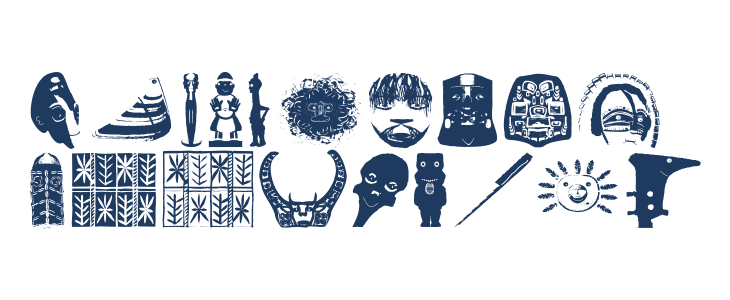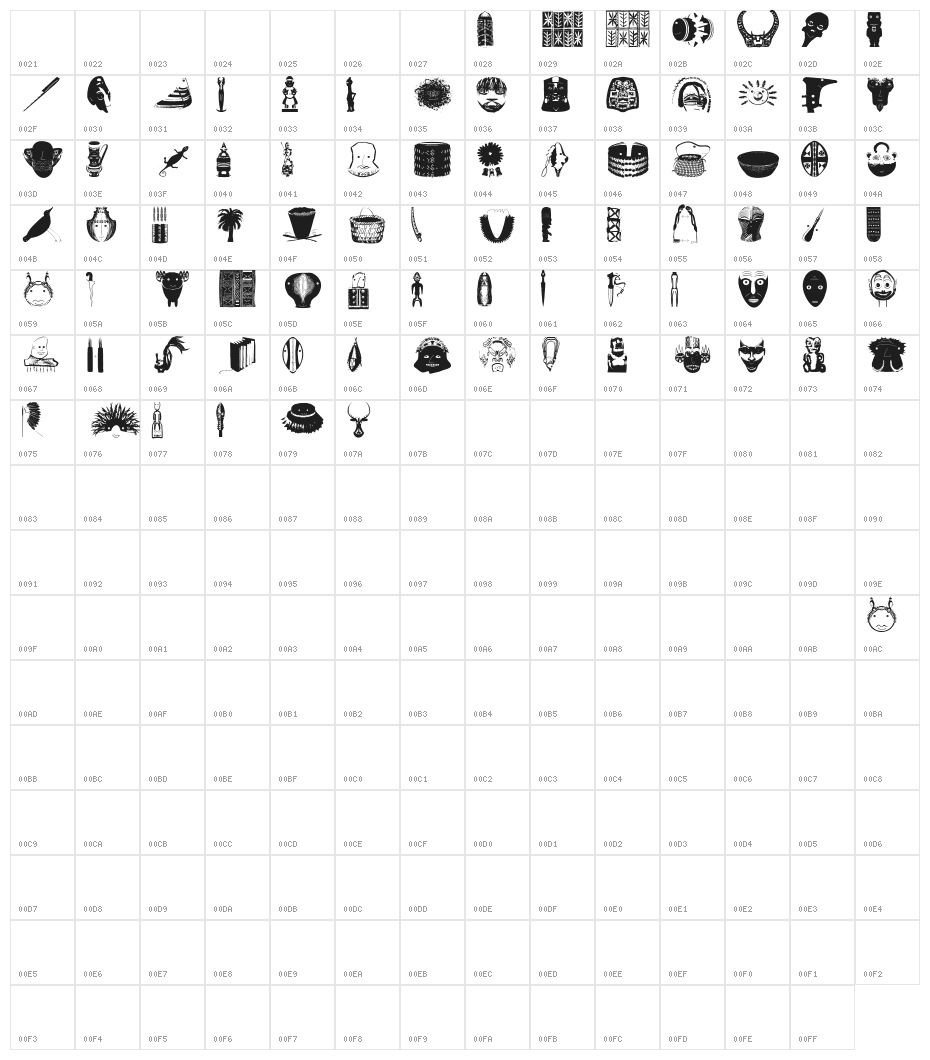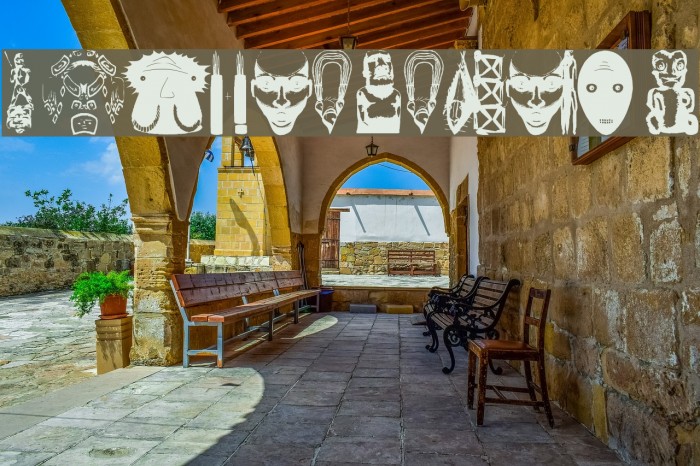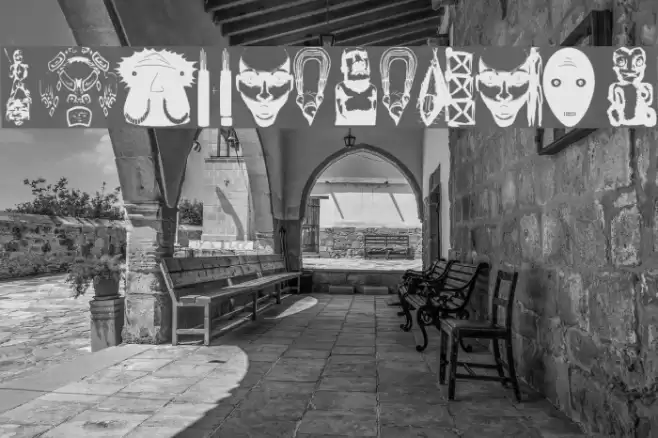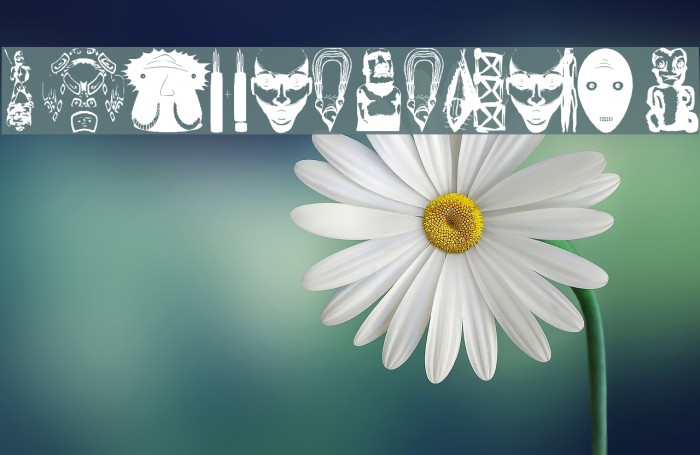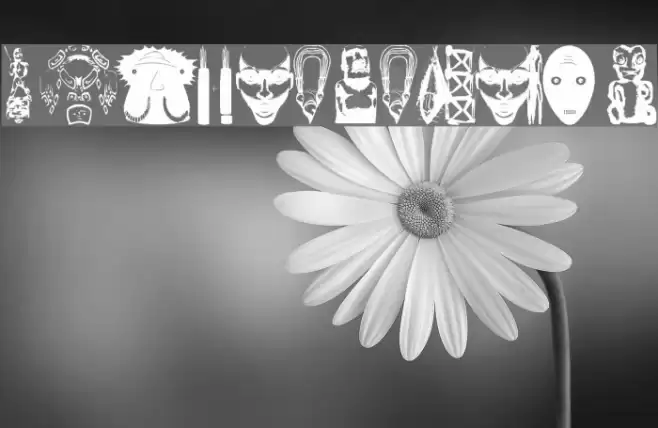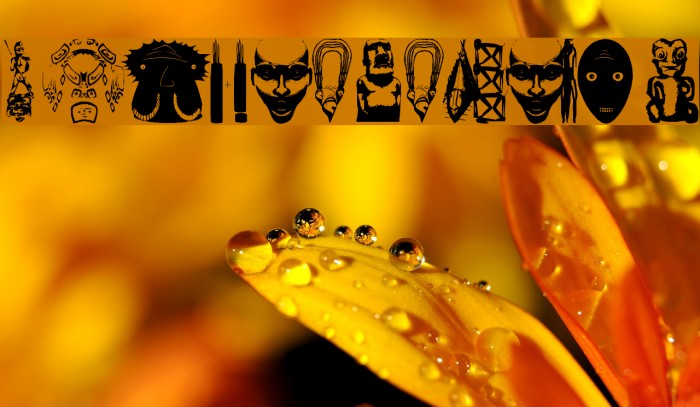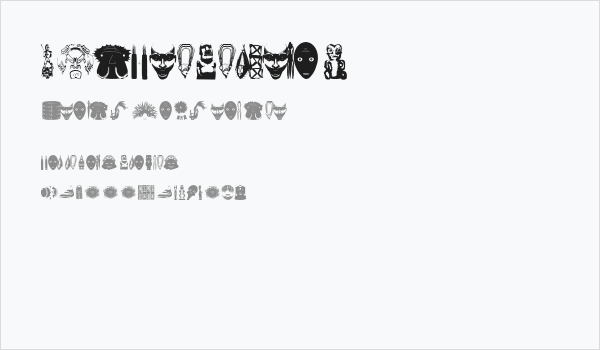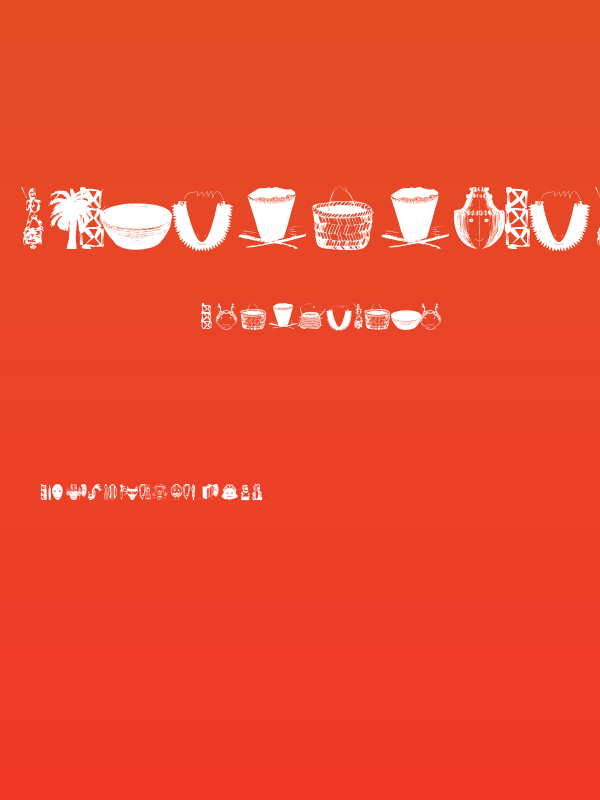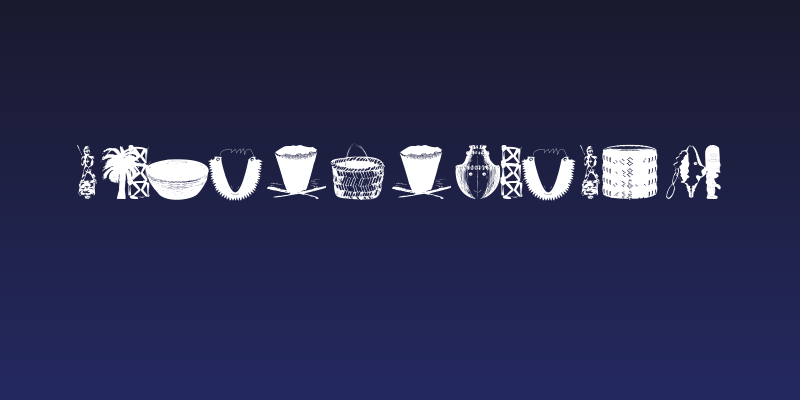
AnthropolTraces Font
AnthropolTraces Description
A highly decorative and illustrative dingbat font featuring a diverse collection of anthropological and ethnographic icons, including masks, artifacts, pottery, baskets, and cultural motifs. Each glyph is a unique pictogram rendered in bold, high-contrast black and white, with intricate details and stylized forms.
| Overall Style | Decorative, Ethnographic, Illustrative |
| Use Case | Icons, Decorative elements, Thematic graphics |
| Proposed Projects | Educational materials, museum signage, cultural event posters, book covers, infographics, and visual storytelling. |